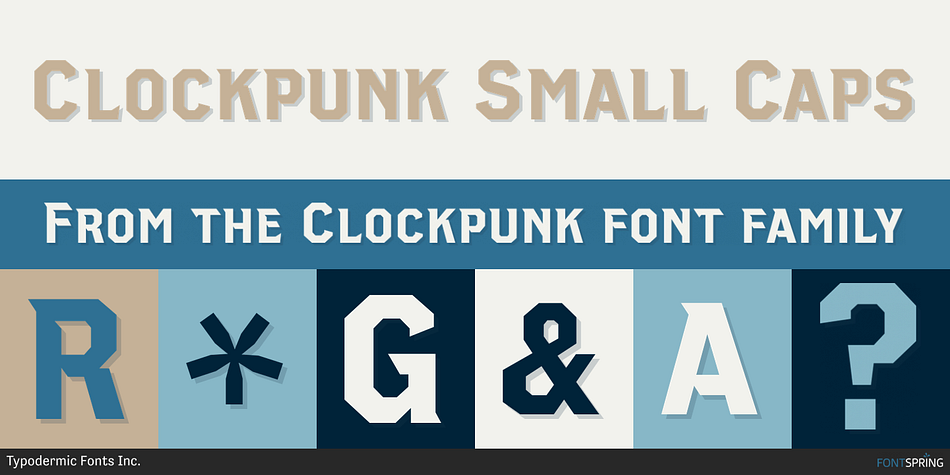
Clockpunk Small Caps
Clockpunk is a display serif font family. This typeface has two styles and was published by Typodermic Fonts Inc.
Welcome to a world where the past and future collide, where vintage meets modern in a glorious display of Clockpunk. This industrial grotesque typeface is not your ordinary typeface. Inspired by early twentieth-century boxy railroad signage, Clockpunk is the perfect fusion of steampunk and sci-fi.
Its sharp serifs and straight lines bring to mind memories of vintage ads painted on brick walls, adding an air of nostalgia and history to your designs. But don’t be fooled by its retro look, Clockpunk is a versatile font that can be used for both small print and headlines.
Its Regular and Small Cap styles are perfect for bringing your vision to life, whether you’re designing a poster for a steampunk festival or creating a sci-fi book cover. With Clockpunk, the possibilities are endless.
Get ready to take your designs to the next level with this unique and eye-catching typeface. Clockpunk is here to make a statement and leave a lasting impression.